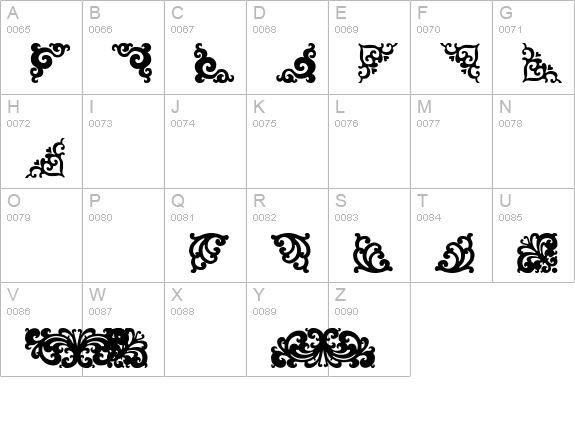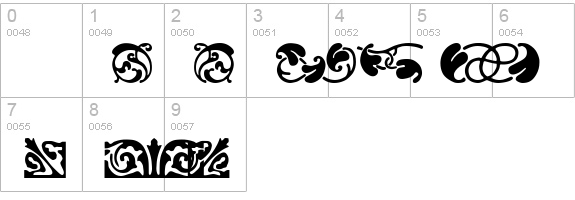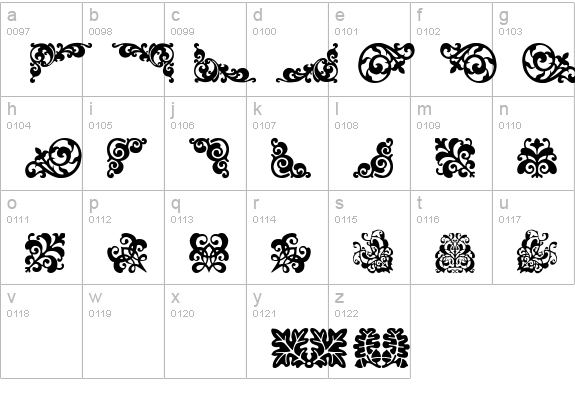
Floriat Font Details
Floriat font is a stunning and elegant typeface that exudes a sense of sophistication and charm. Its delicate floral-inspired details add a touch of whimsy and femininity to any design project. With its graceful curves and intricate flourishes, Floriat font is perfect for creating invitations, greeting cards, branding materials, and more. What's even more exciting is that Floriat font is available for free download at FontsMarket.com. This means you can easily access this beautiful font and use it in your creative projects without any cost. Whether you're a designer looking to add a unique touch to your work or someone who simply appreciates the beauty of typography, Floriat font is a must-have in your collection. Download it today and let your creativity bloom with Floriat font.